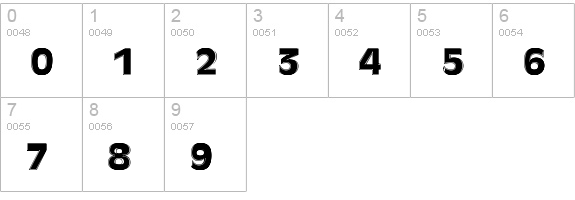
Antique Olive T Bold In1 is a strong, high-contrast variant in the Antique typeface family \xE2\x80\x94 well suited to headlines, attention-grabbing titles, and strong calls-to-action.
Antique Olive T Bold In1 font is a timeless and elegant typeface that exudes sophistication and charm. Its bold and striking design makes it perfect for headlines, titles, and other display purposes. With its classic yet modern aesthetic, Antique Olive T Bold In1 font is sure to make a statement in any design project. The best part? This exquisite font is available for free download at FontsMarket.com. Now you can add a touch of vintage flair to your designs without breaking the bank. Don't miss out on the opportunity to enhance your projects with the beauty and grace of Antique Olive T Bold In1 font. Download it today and elevate your designs to the next level.